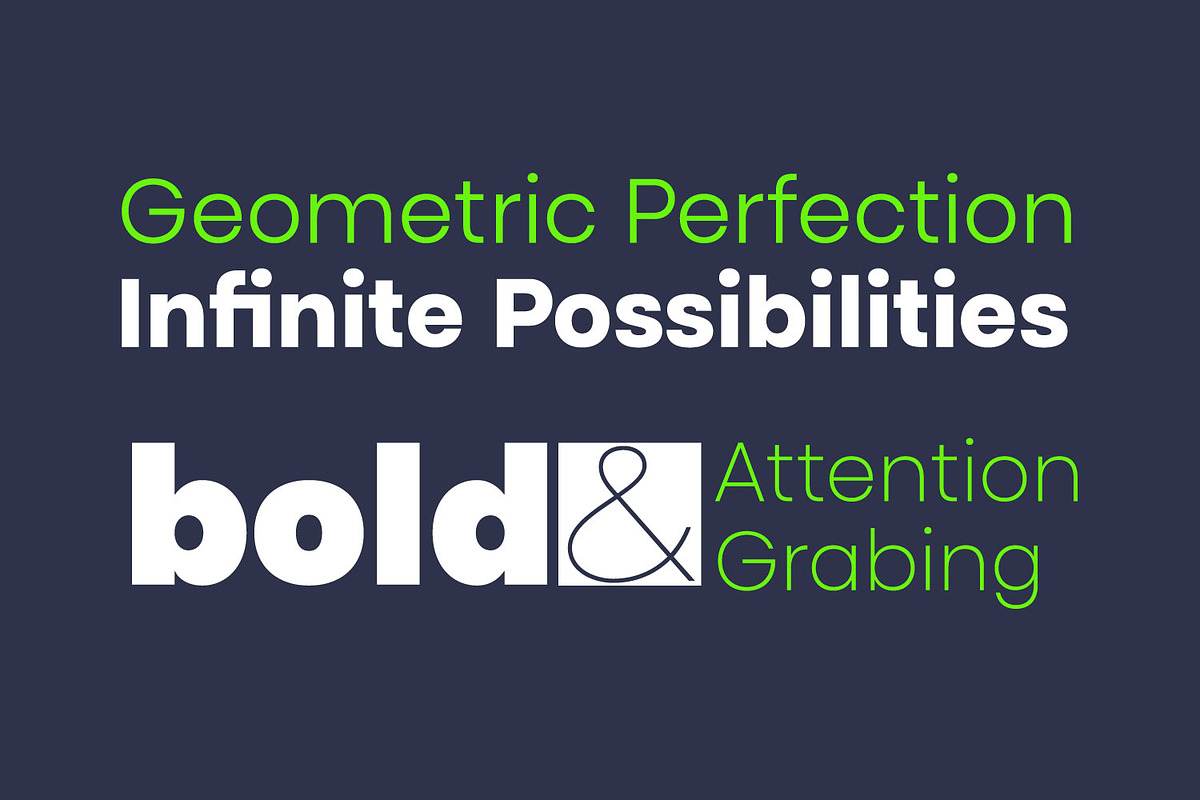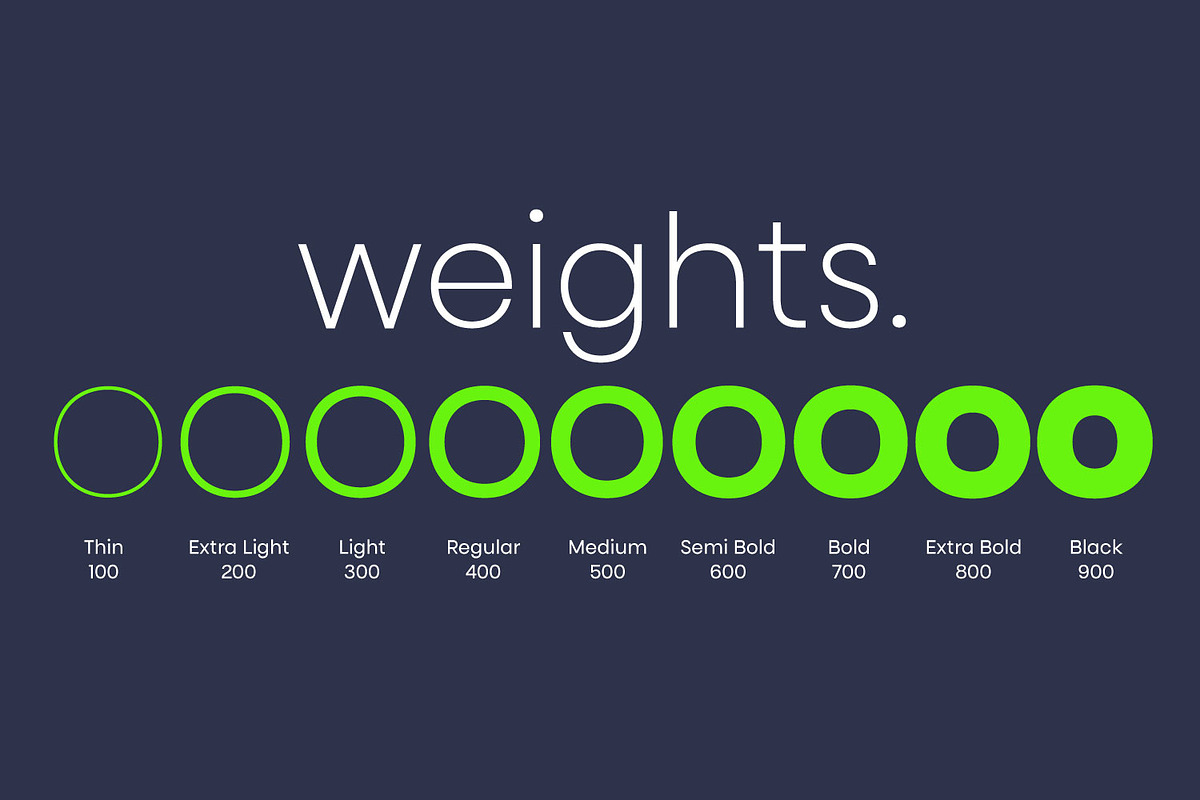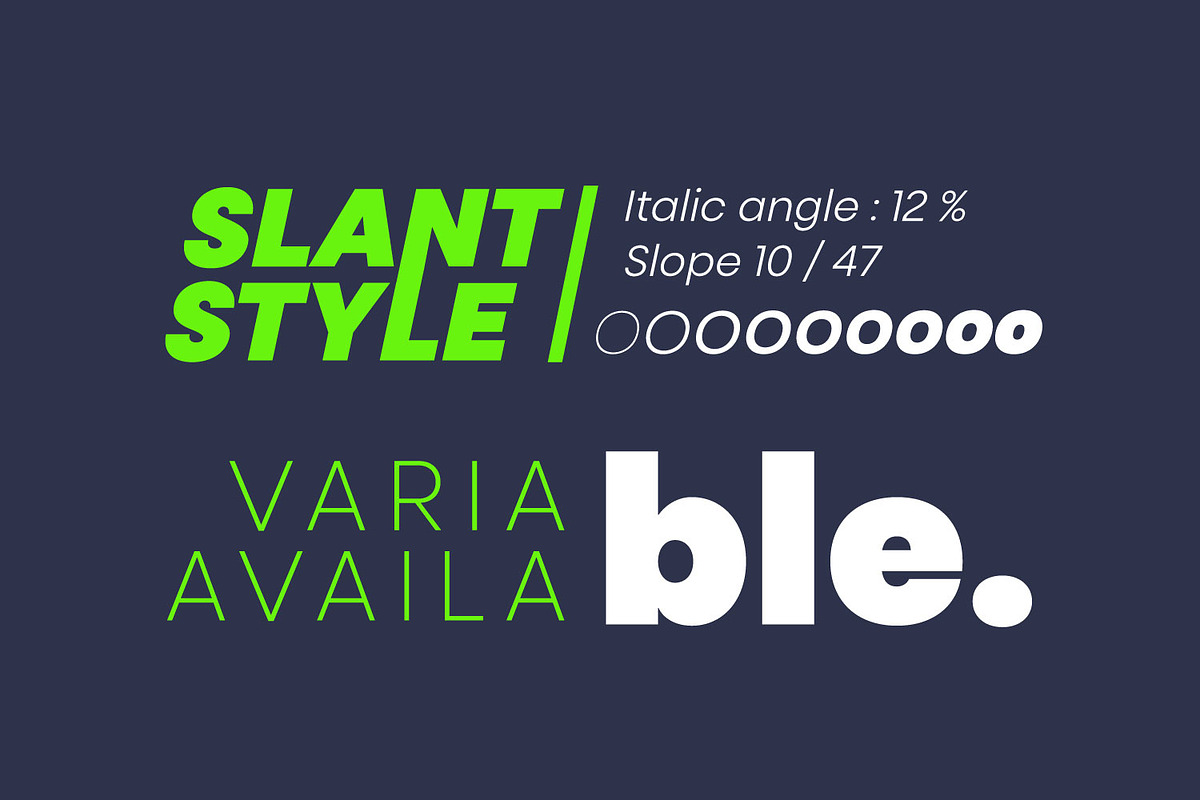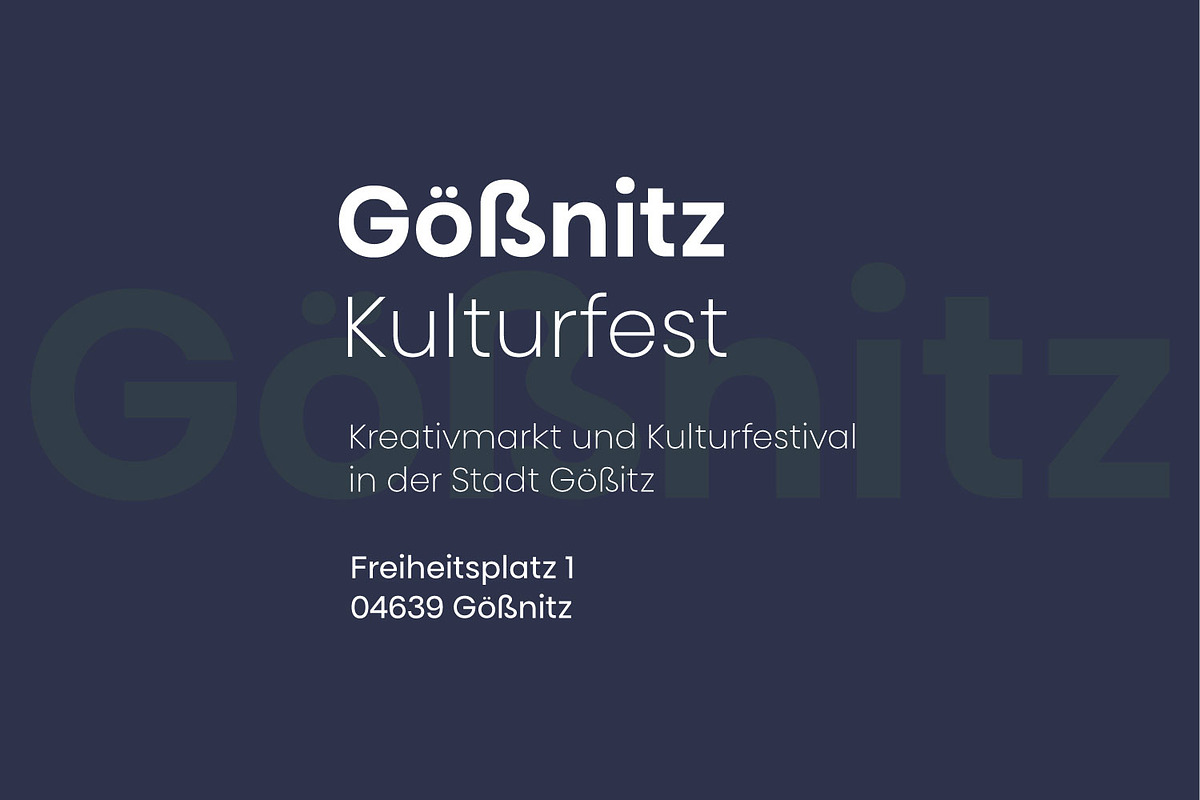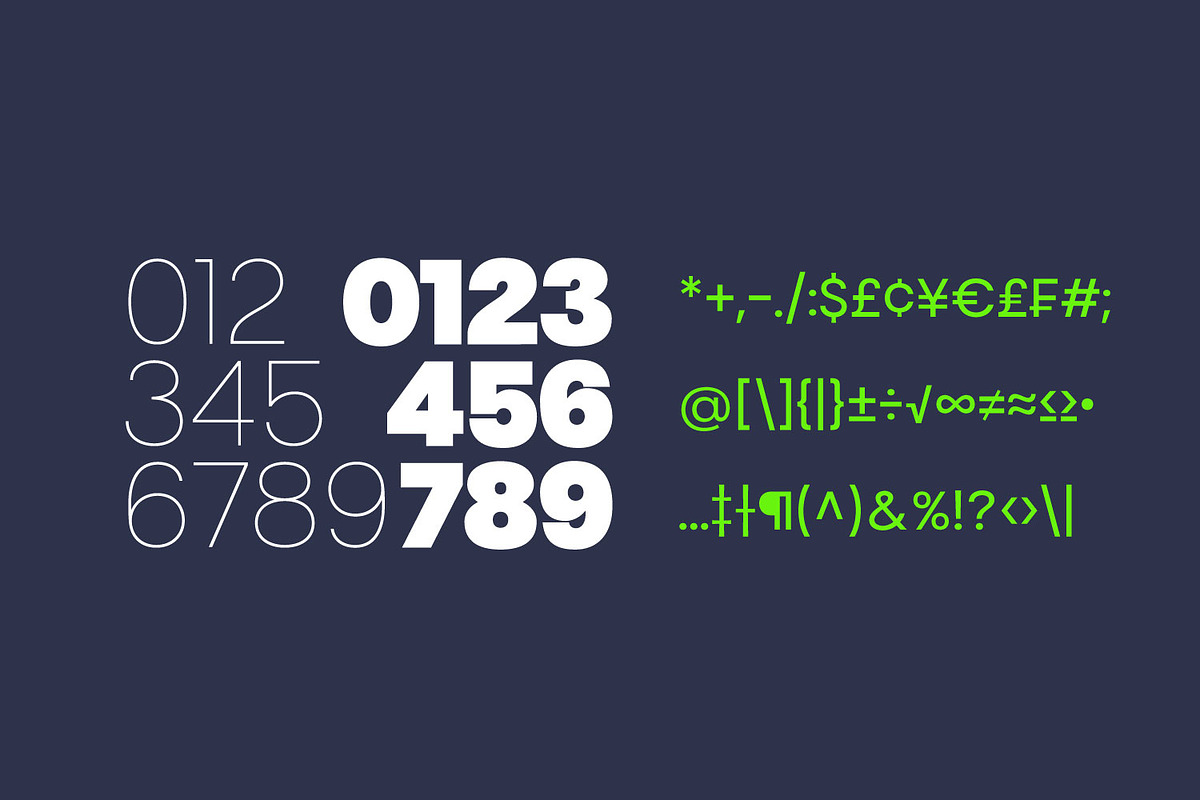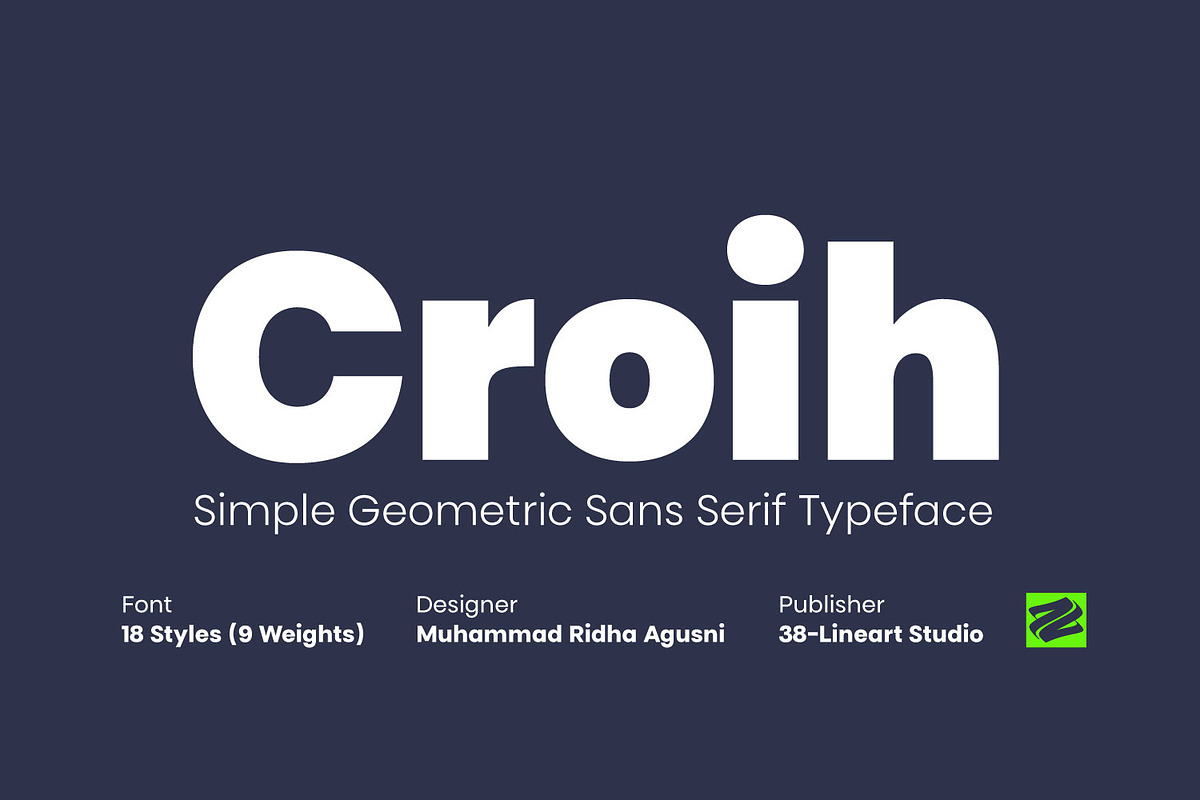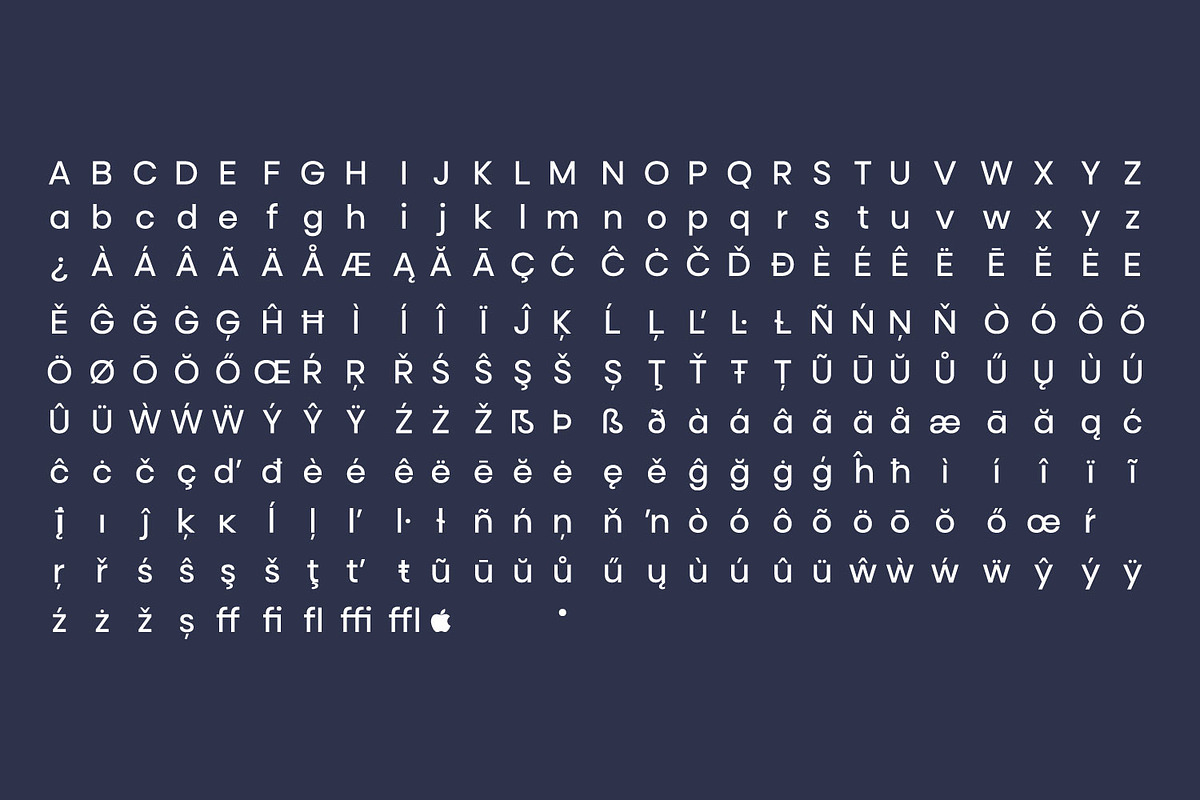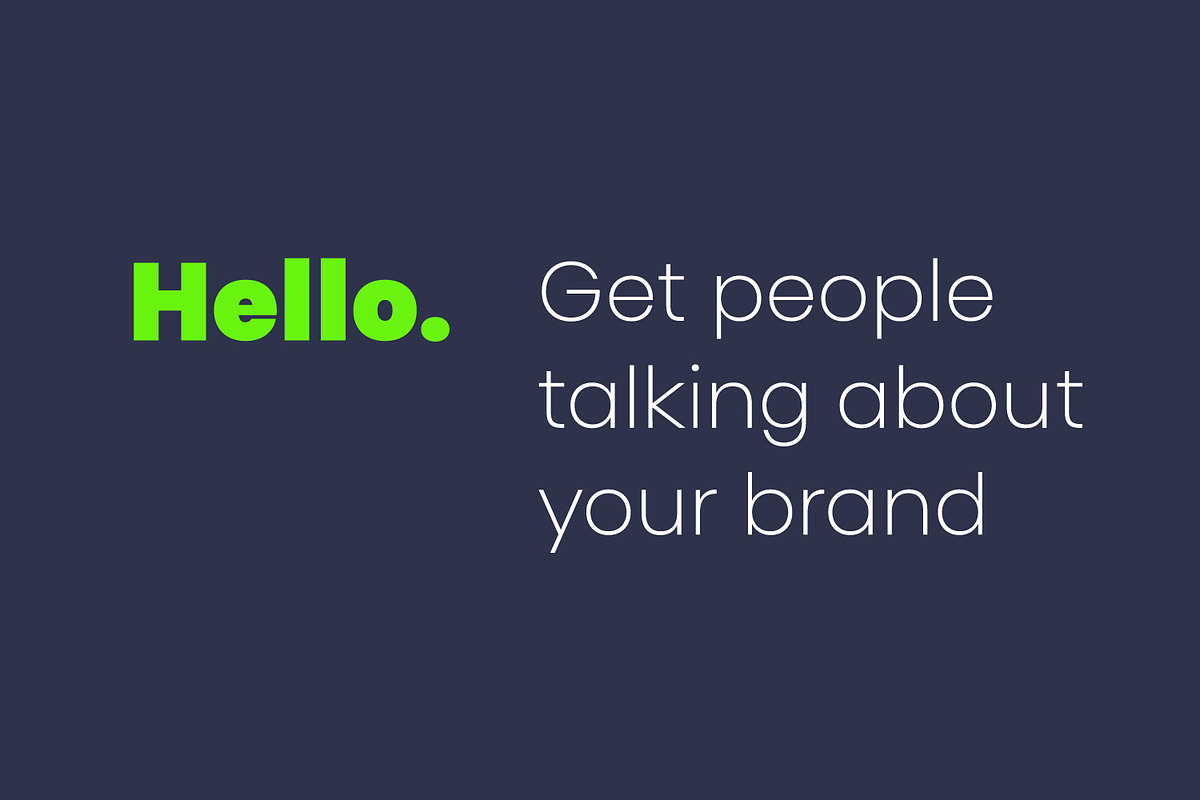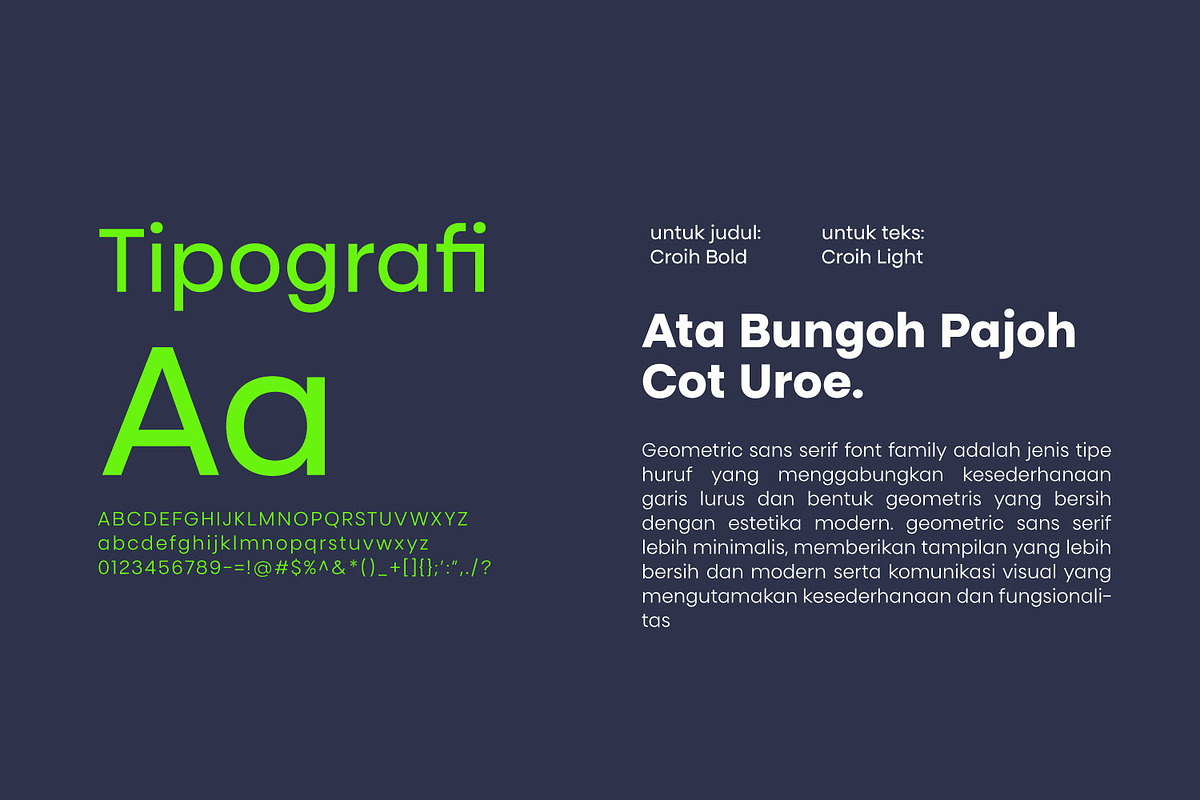
Croih - Simple Geometric Sans Serif
Croih is a refined geometric sans-serif typeface that combines simplicity with modern elegance. Its clean lines and balanced shapes make it a versatile choice for a variety of design projects. Offering 18 styles across 9 weights, from Thin to Black, Croih ensures flexibility for both bold, impactful headlines and smooth, highly readable body text. The typeface features a full character set, including uppercase, lowercase, numerals, symbols, accents, and ligatures, making it ideal for multilingual projects and adaptable to various branding and communication needs. Perfect for both print and digital media, Croih’s contemporary design is well-suited for creating striking visuals